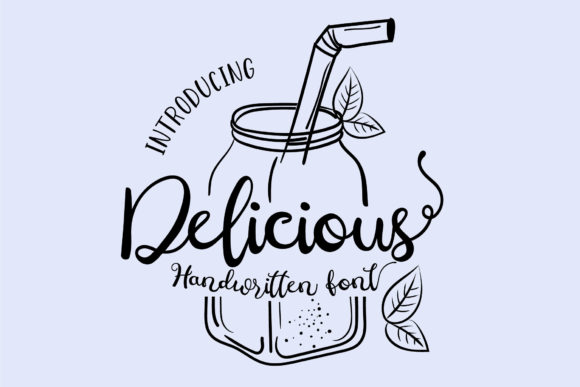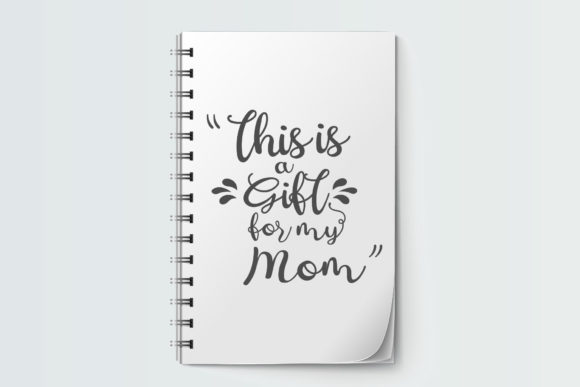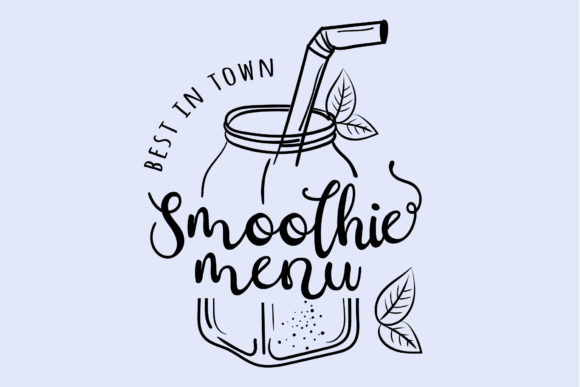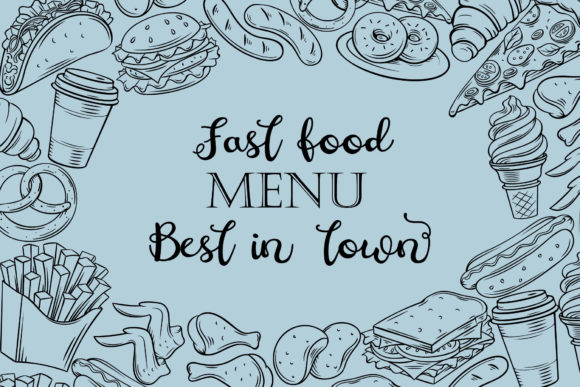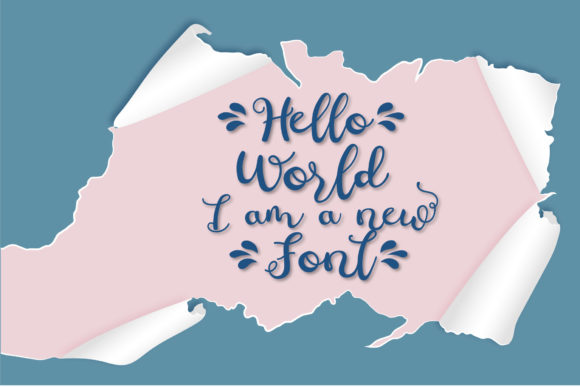
About Delicious Font
Delicious is a charming and versatile handwritten font that exudes a timeless appeal. With its unique and beautiful touch, this font is the perfect choice for creating eye-catching logos, branding materials, and quotes that leave a lasting impression.
The letters in Delicious have been carefully crafted to showcase their individuality and charm. Each stroke has a natural flow and elegance, capturing the essence of handwritten beauty. The result is a font that adds a personal and authentic touch to your designs.
One of the standout features of Delicious is its PUA encoding, which allows for easy access to all the glyphs and swashes. This means you can effortlessly explore the various decorative elements, alternate characters, and ligatures that come with the font. By utilizing these additional design elements, you can further customize and enhance your creations, adding depth and personality.
Whether you’re working on a logo design, branding materials, or creating inspiring quotes, Delicious will bring your designs to life. Its versatility allows it to shine in both print and digital applications, making it suitable for a wide range of projects.
The timeless and charming nature of Delicious makes it a valuable asset in any designer’s toolkit. Its ability to evoke emotions and create a personal connection with the audience sets it apart. With every letter, Delicious adds a touch of elegance and beauty to your designs, ensuring they stand out from the crowd.
In summary, Delicious is a lovely and timeless handwritten font that excels in creating eye-catching logos, branding, and quotes. With its PUA encoding, you have easy access to all the font’s unique glyphs and swashes, allowing you to fully unleash your creativity. Incorporate Delicious into your designs and watch them come alive with its authentic and charming aesthetic.